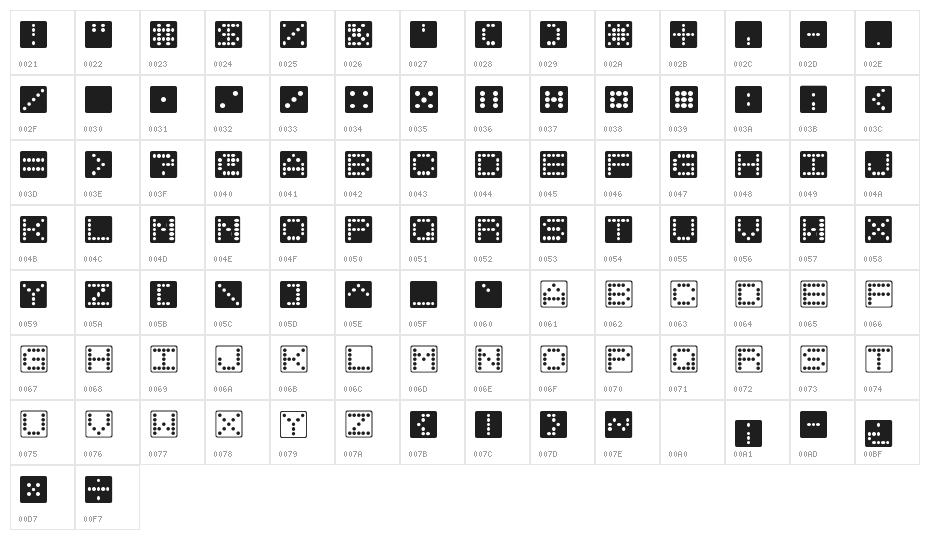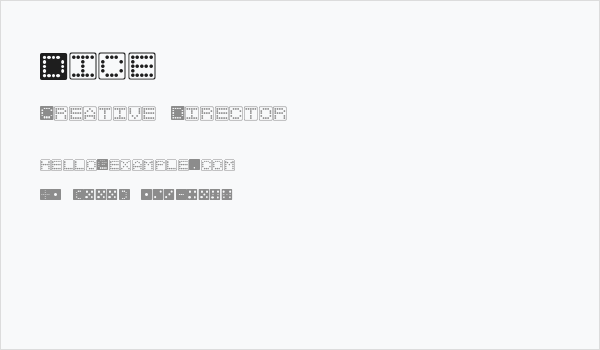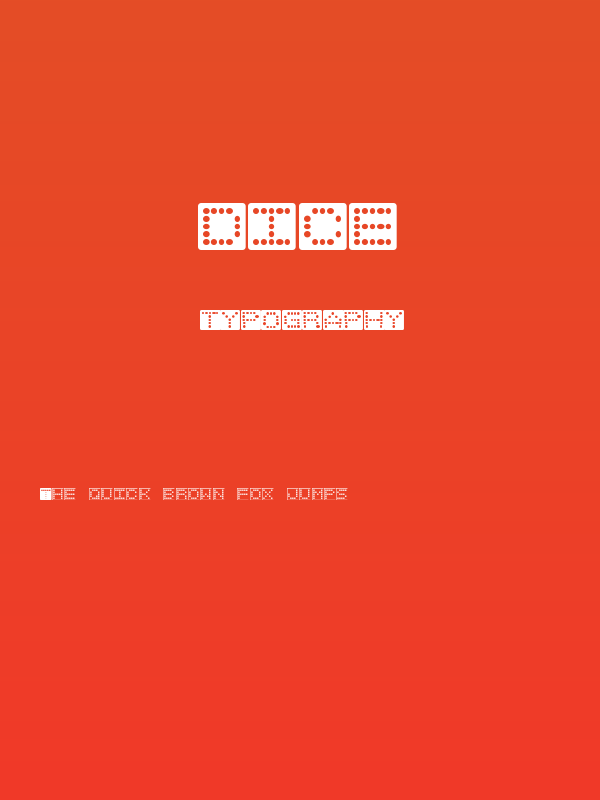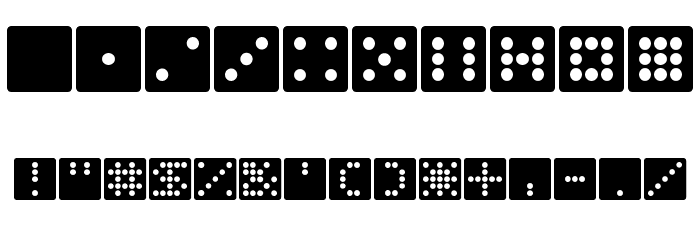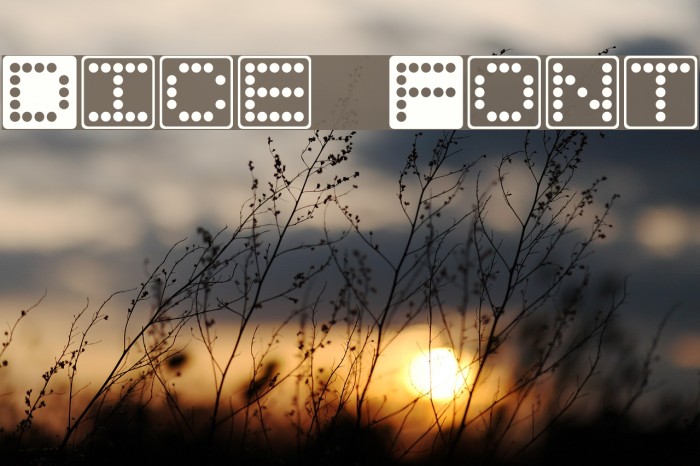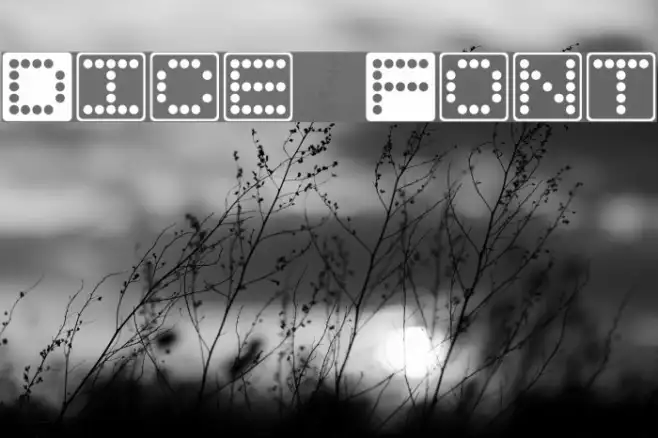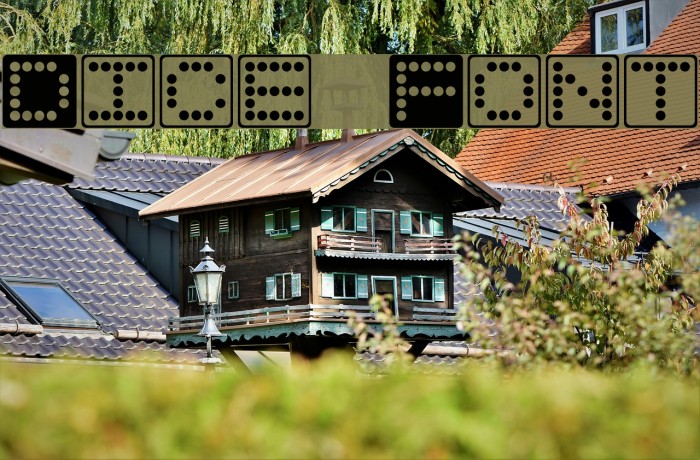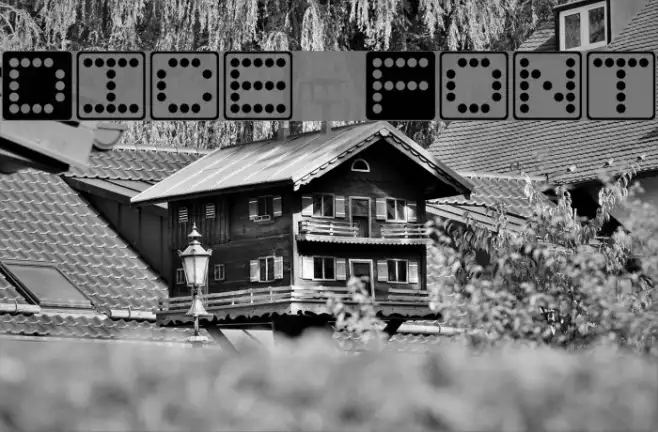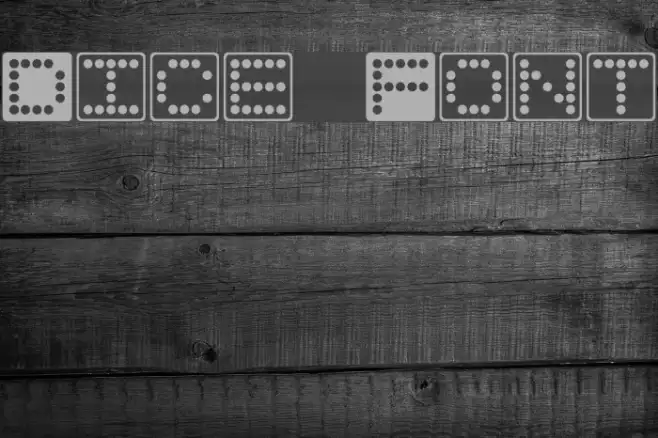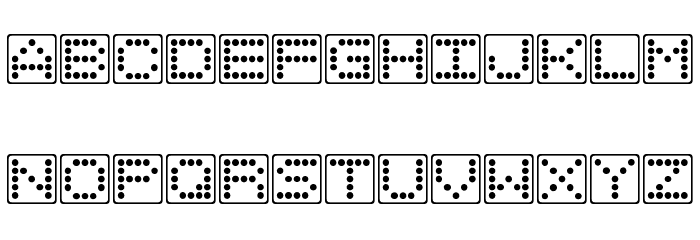
Dice Font
Dice Description
This font is a playful and creative design that mimics the appearance of dice. Each character is represented by a series of dots arranged in a pattern similar to the faces of dice, enclosed within a square. The font is highly decorative, making it ideal for projects that require a fun and engaging visual style. The characters are bold and stand out due to the high contrast between the black background and white dots. This unique style captures attention and adds a whimsical touch to any design.
| Proposed Projects | Ideal for board game designs, playful posters, children's books, and themed party invitations. |